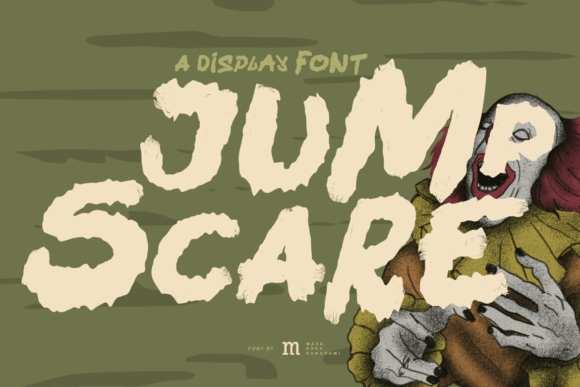
Unleash the captivating power of Jump Scare font - the ultimate display font that will make your designs scream for attention! With its distinct spooky vibe and a touch of creepiness, Jump Scare isn't just a font; it's a haunting experience.
Crafted by the visionary Masa Aska Sanurumi, Jump Scare is an exclusive display font that defies the ordinary. Its unique style is reminiscent of a dark, eerie night, where shadows dance and whispers echo in the wind.
Jump Scare is a visual symphony of horror-inspired beauty. Its curved lines and sharp edges evoke a sense of mystery that will leave your audience spellbound. From posters and flyers to album covers and logos, Jump Scare is the perfect font to convey a message of intrigue and suspense.
But Jump Scare isn't just about aesthetics. It's also incredibly versatile. Whether you're creating a Halloween-themed design or simply want to add a touch of spooky charm to your projects, Jump Scare seamlessly adapts to any concept.